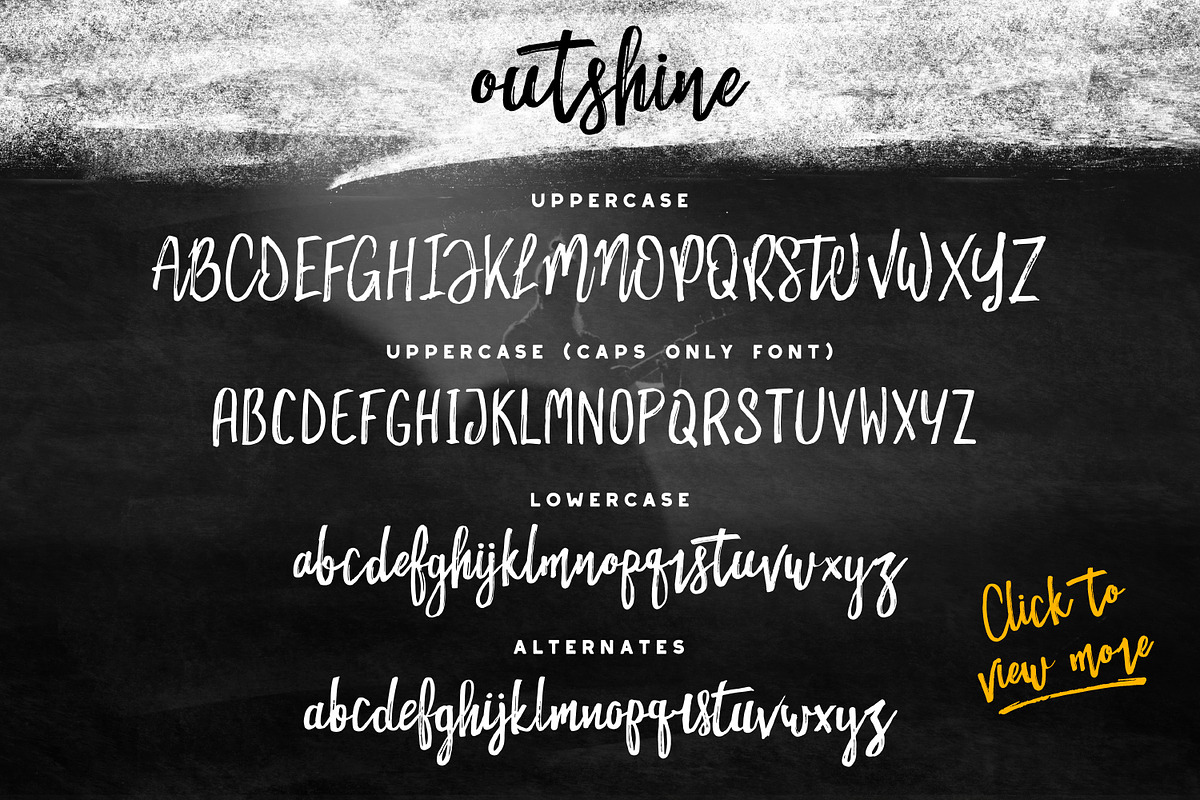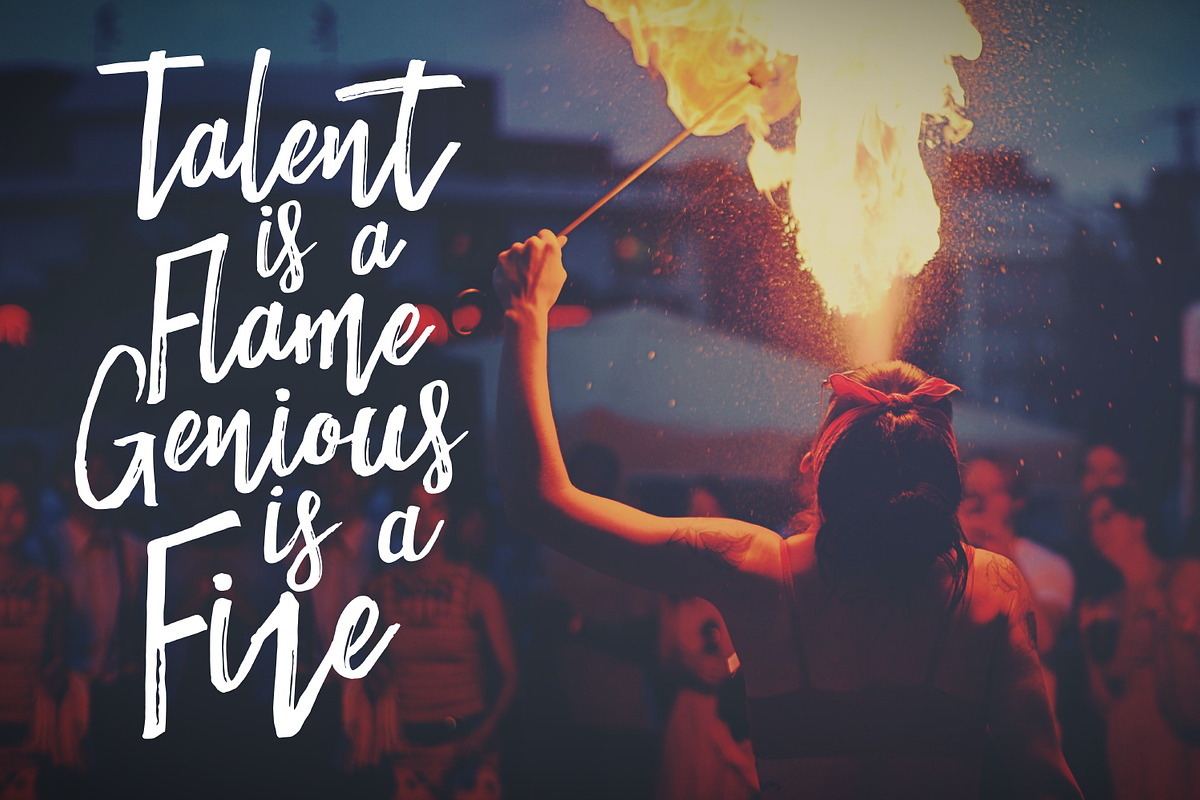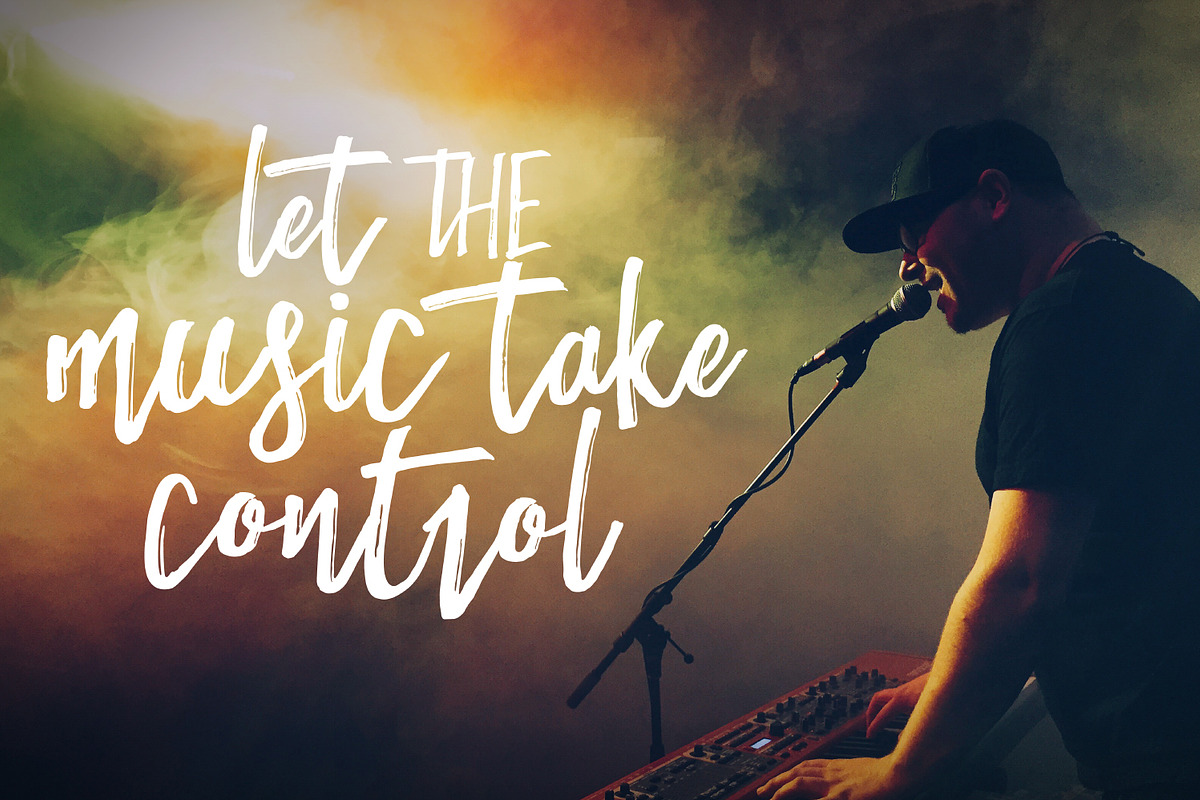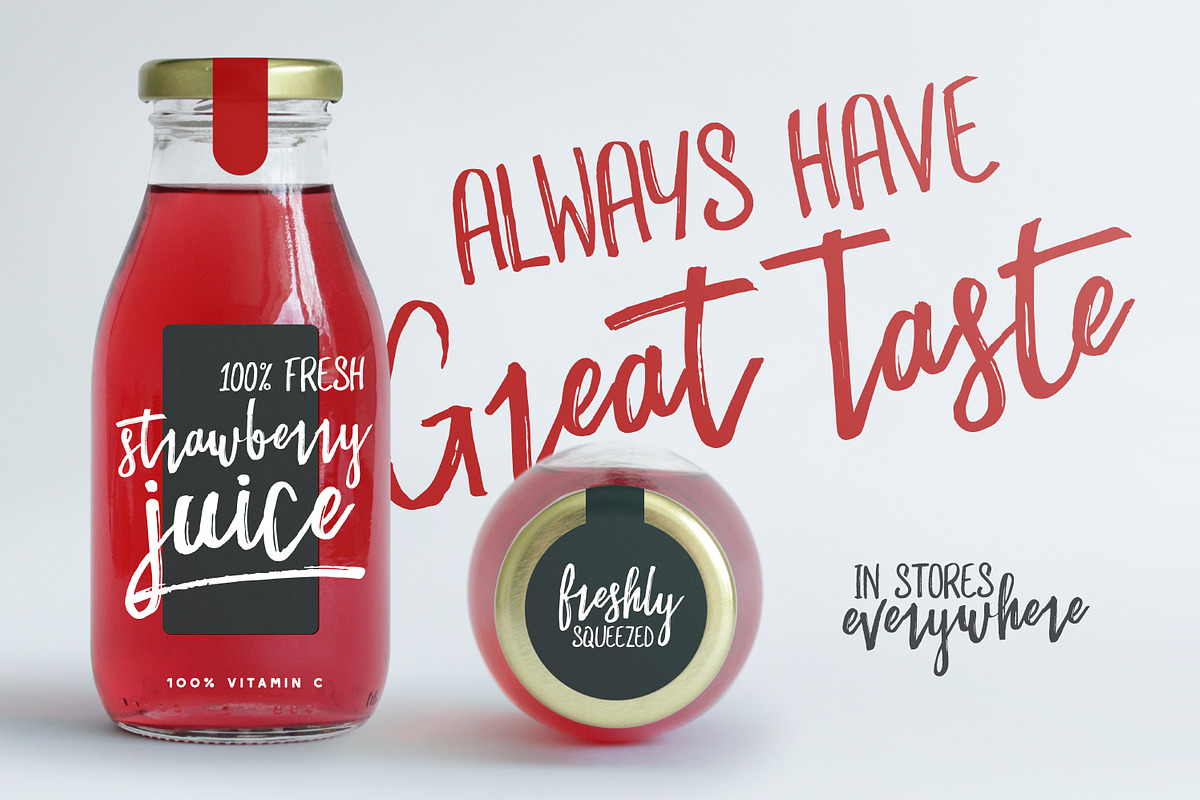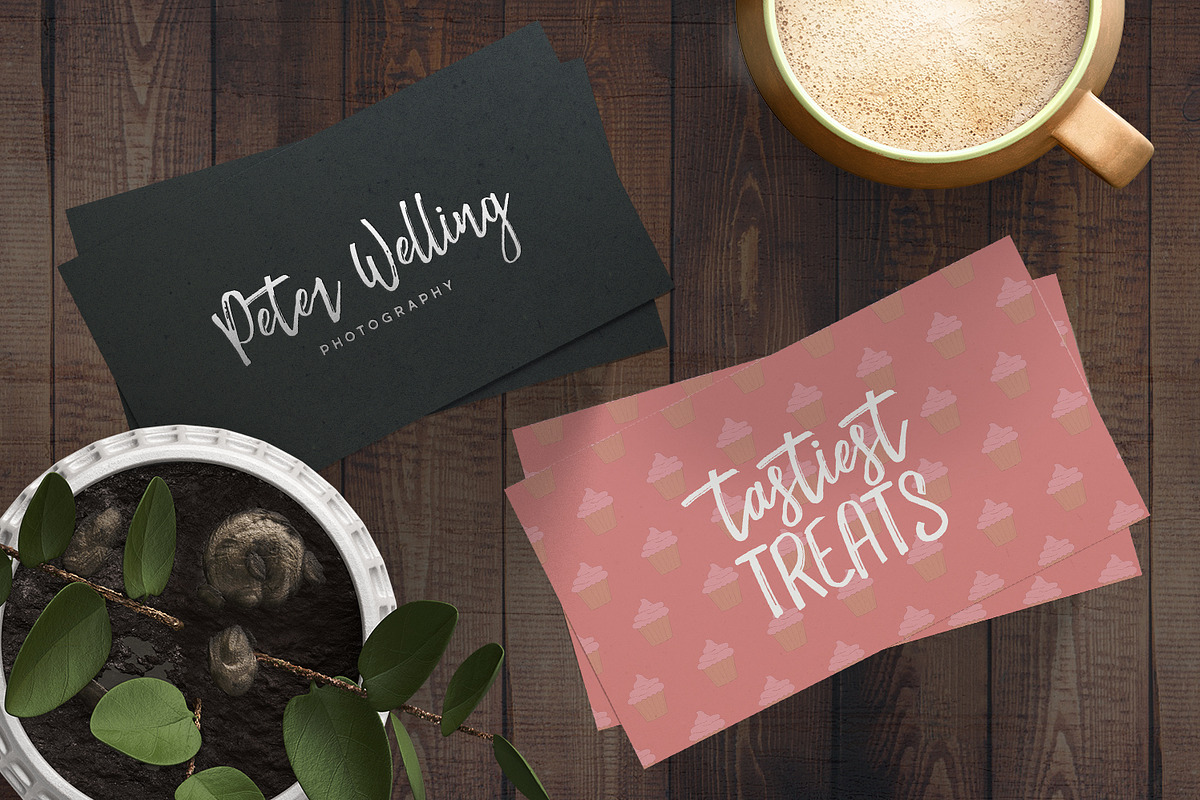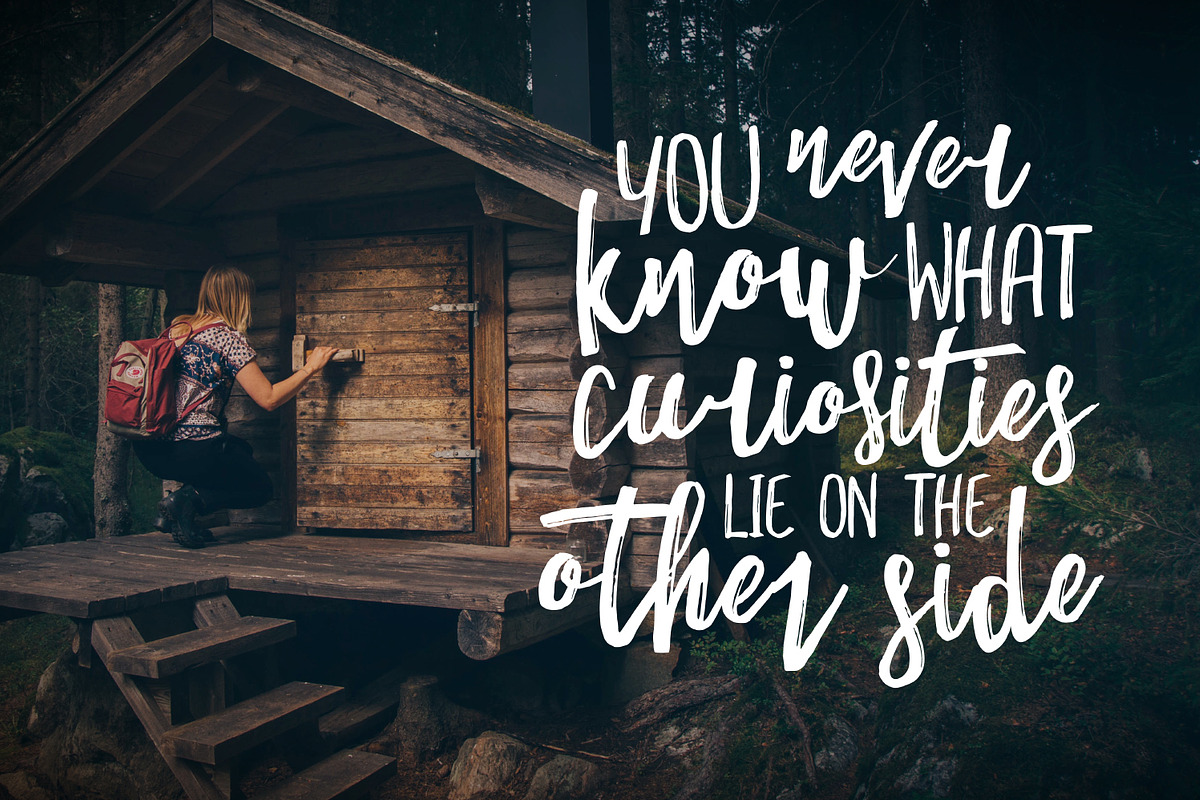
Outshine Duo Font Pack
Outshine Duo Font Pack by Greg Nicholls is a font selected for branding, posters, packaging, typography.
- Outshine Alternate - In case you have issues loading alternate ligatures, this font contains them all!
- Lots of language support, and extra symbols/characters.
- Alternate ligatures are also available, to keep each character looking unique.
- Outshine Alternate - In case you have issues loading alternate ligatures, this font contains them all!
Why Outshine Duo Font Pack is worth a look
Outshine Duo Font Pack by Greg Nicholls fits naturally into Branding, posters, packaging, typography.